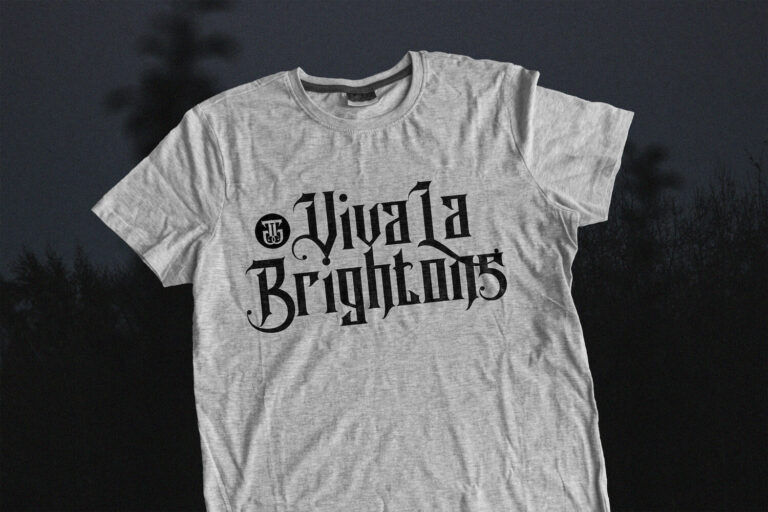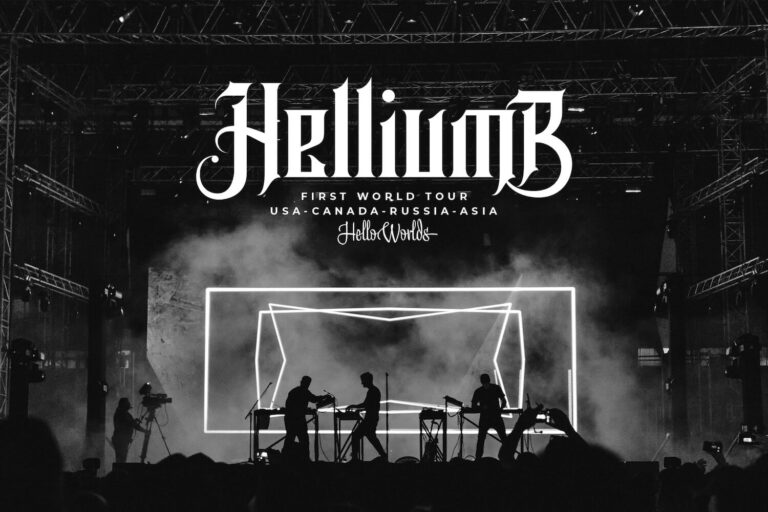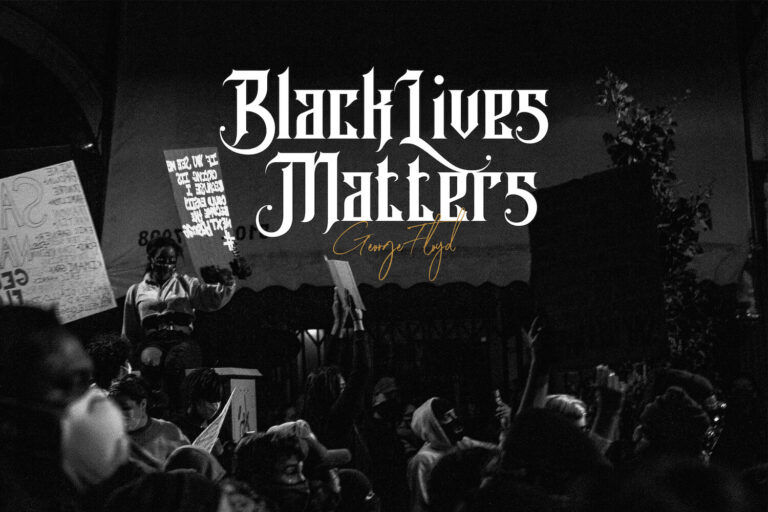
Avalen Rekas Blackletter Font is a bold, gothic-inspired typeface that commands attention with its dramatic flourishes and sharp contrast. Designed with a fierce sense of personality, this blackletter display font mixes medieval undertones with a modern edge, creating a visual identity that feels both historical and rebellious. Its stylized strokes, ornamental serifs, and vertical tension make each word feel like a crafted insignia rather than just text.
Avalen Rekas is ideal for tattoo studios, barbershops, vintage apparel branding, heavy metal band logos, gothic posters, and editorial covers that aim to make a powerful statement. It excels in projects that require intensity, depth, and a touch of darkness. Whether embossed in gold on a dark background or paired with gritty illustrations, Avalen Rekas turns type into a visual experience.
This font isn’t for the faint of heart—it’s for designers who want to infuse their work with attitude, mystery, and legacy. Avalen Rekas Blackletter Font delivers boldness with style and authenticity.